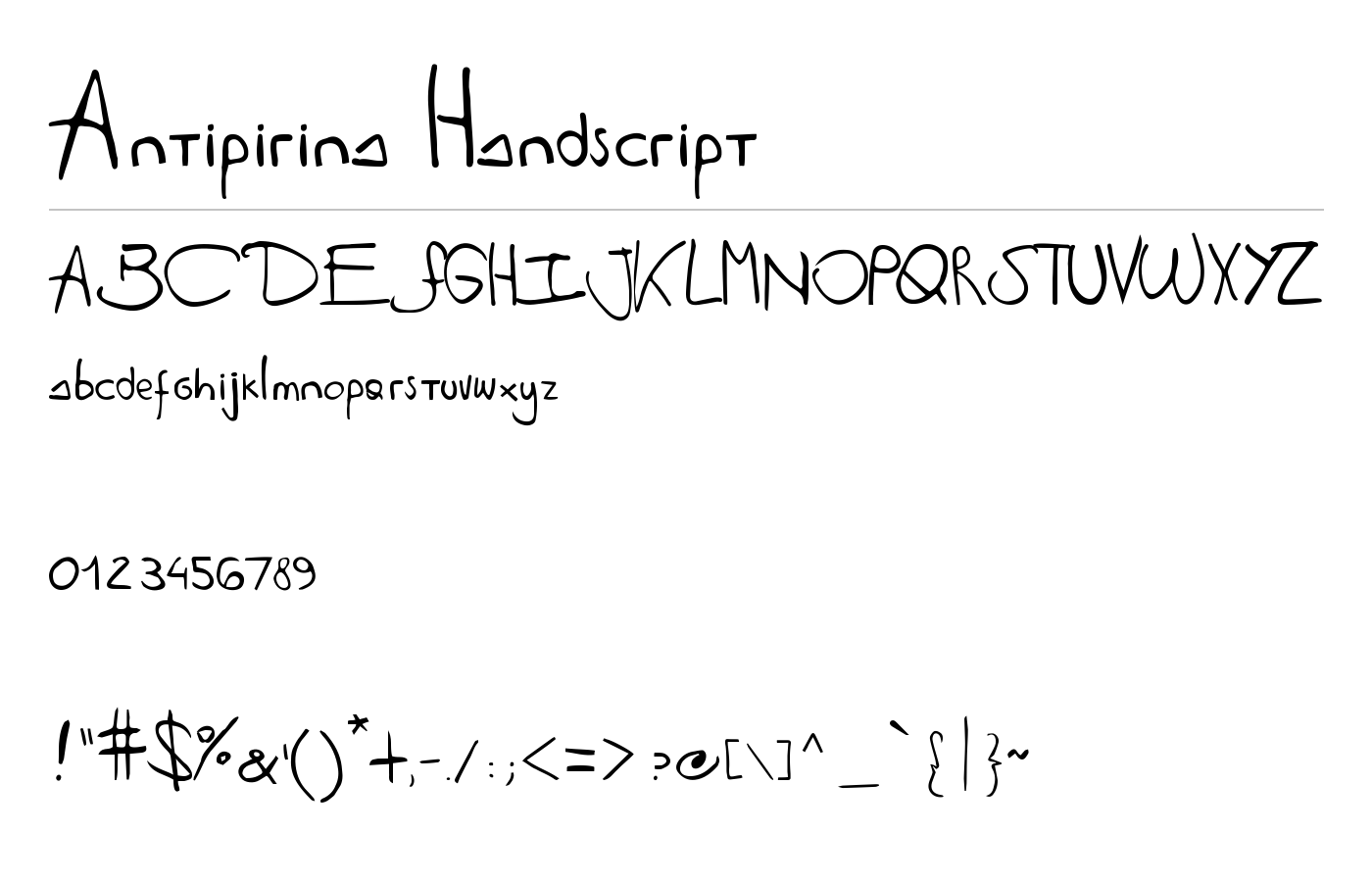
Antipirina Handscript is a playful and quirky handwritten font characterized by its thin, irregular strokes and tall, narrow letterforms. Its casual, imperfect style with unique letter shapes gives it a friendly, informal feel, making it perfect for creative projects, children’s books, and personal branding that seek a fun and approachable vibe. This font works well in headlines, logos, and playful design contexts where a hand-drawn, artistic touch is desired.
Antipirina Handscript Font
About Antipirina Handscript Font